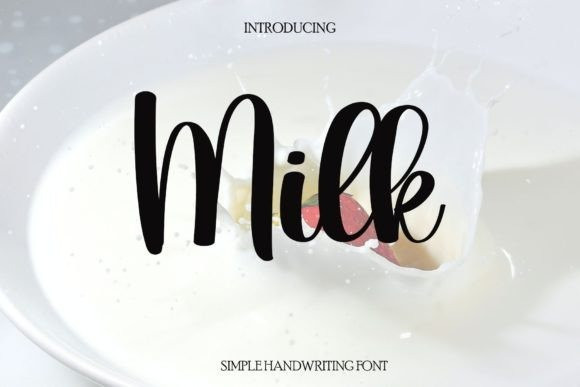
Milk Script Font
Milk Script Font by Harlek studio 30,364 downloads
Milk Script Font
Milk Script Font is a sweet handwritten font. Featuring characters that dance along the baseline, this font will add a luxury spark to any design project you wish to create!